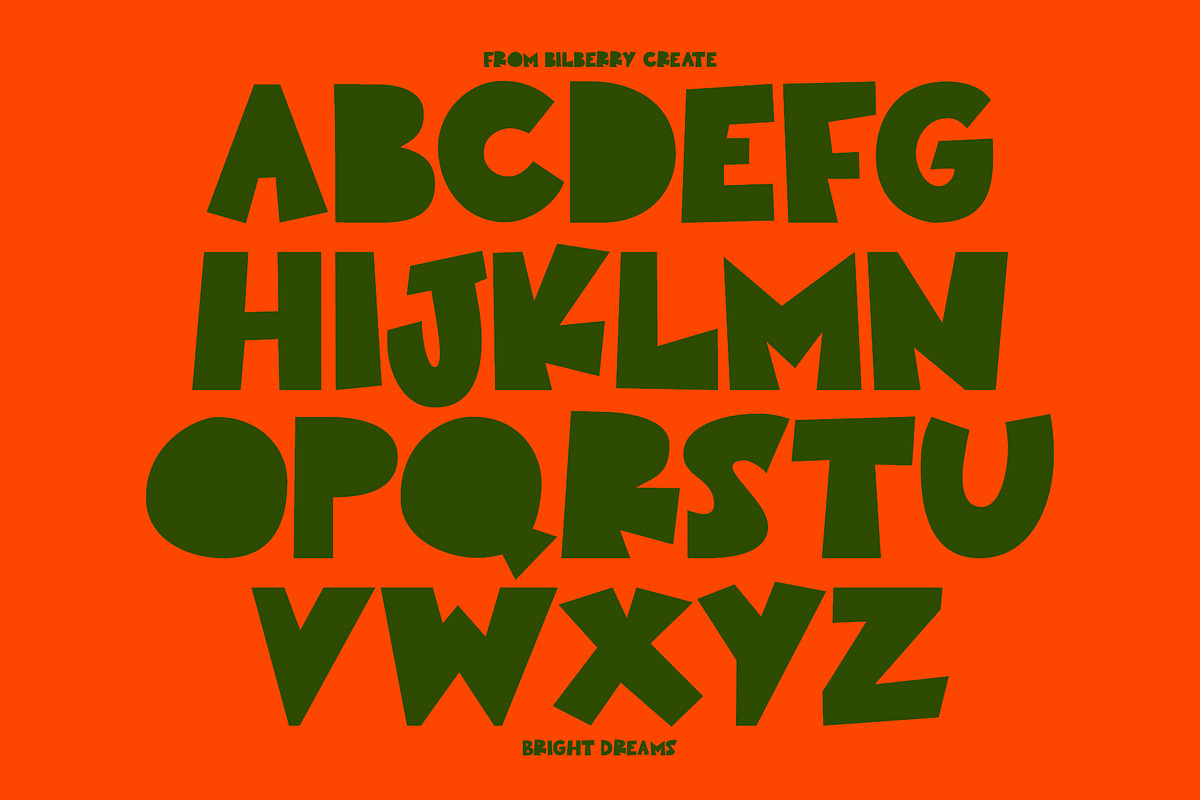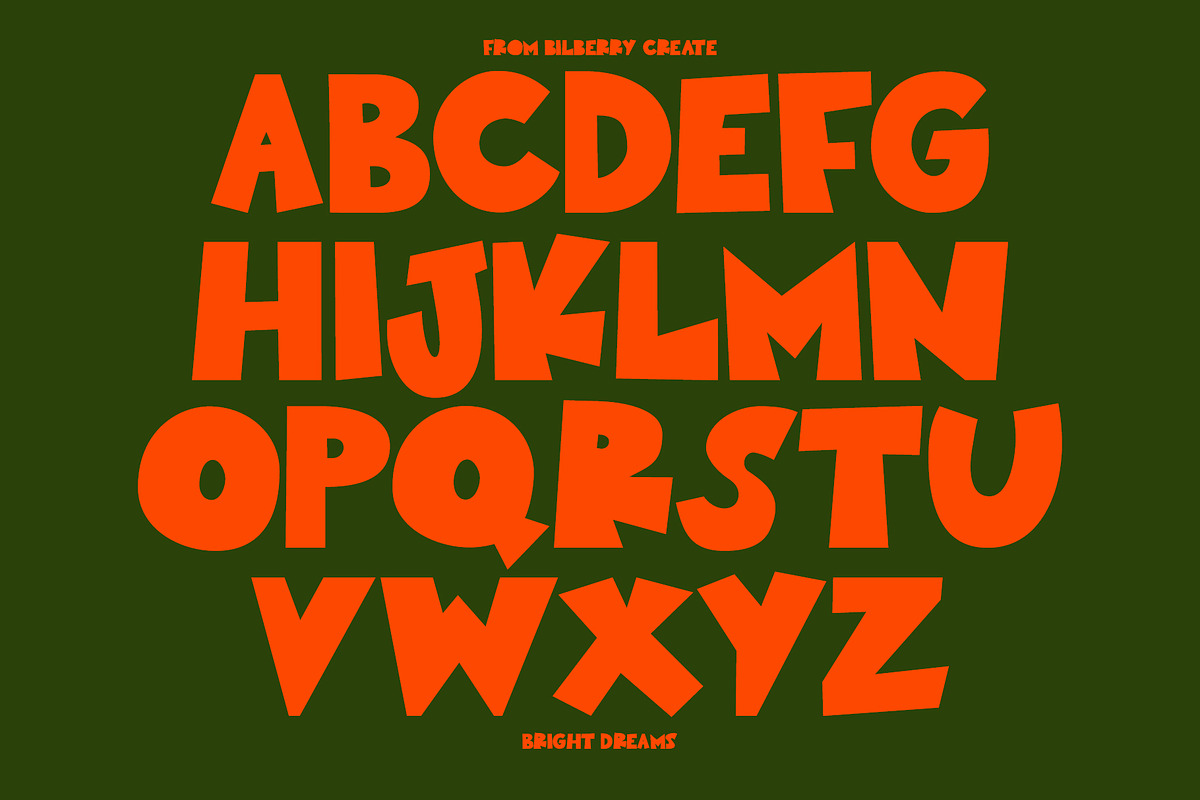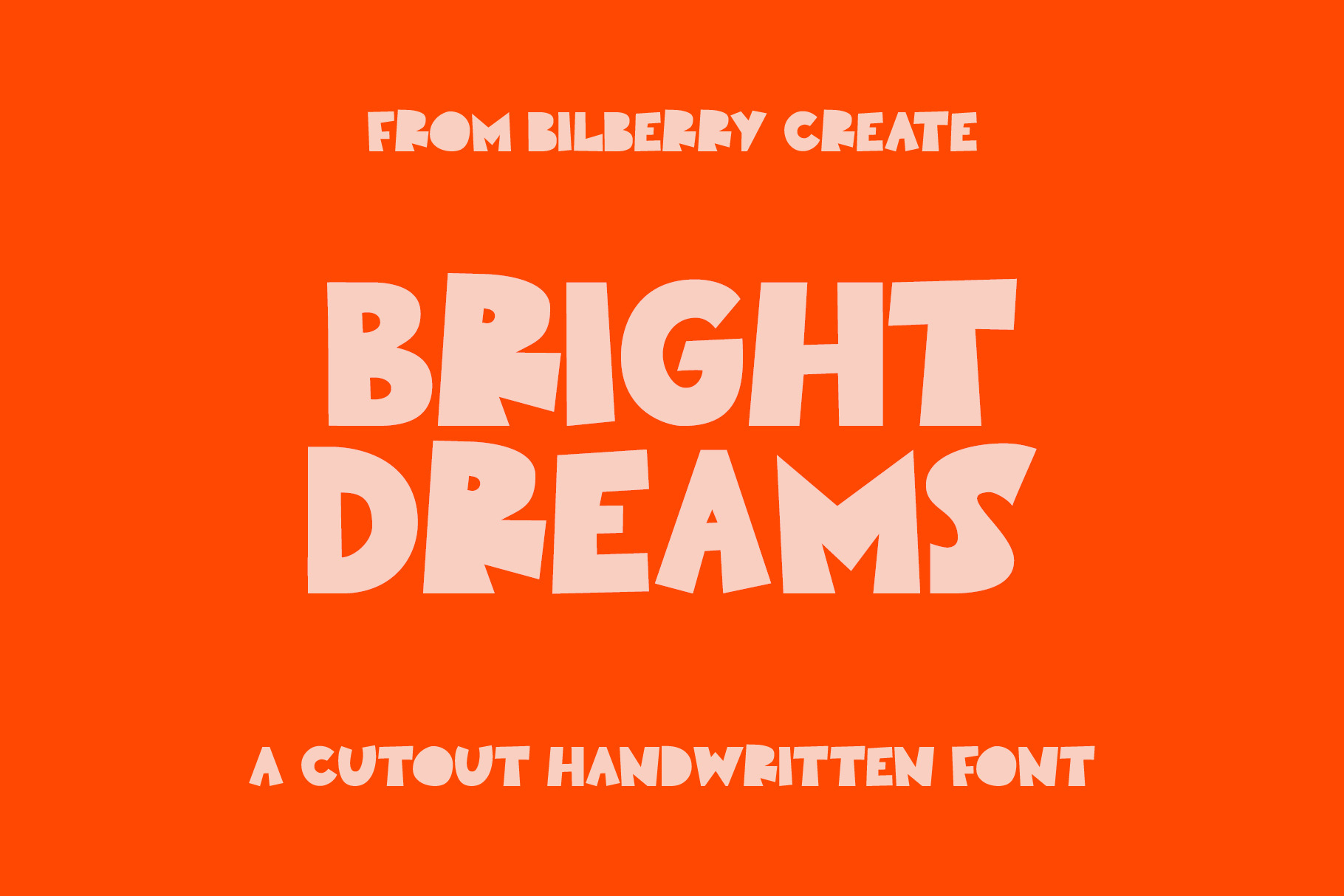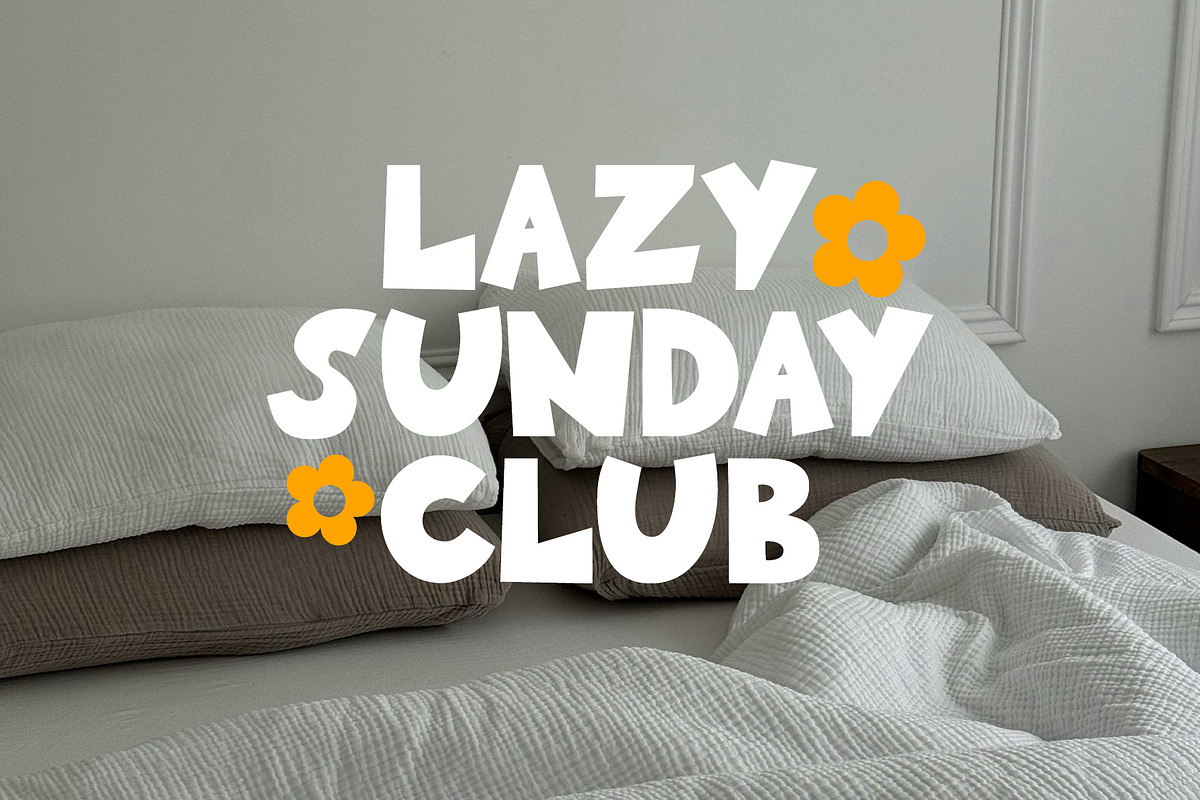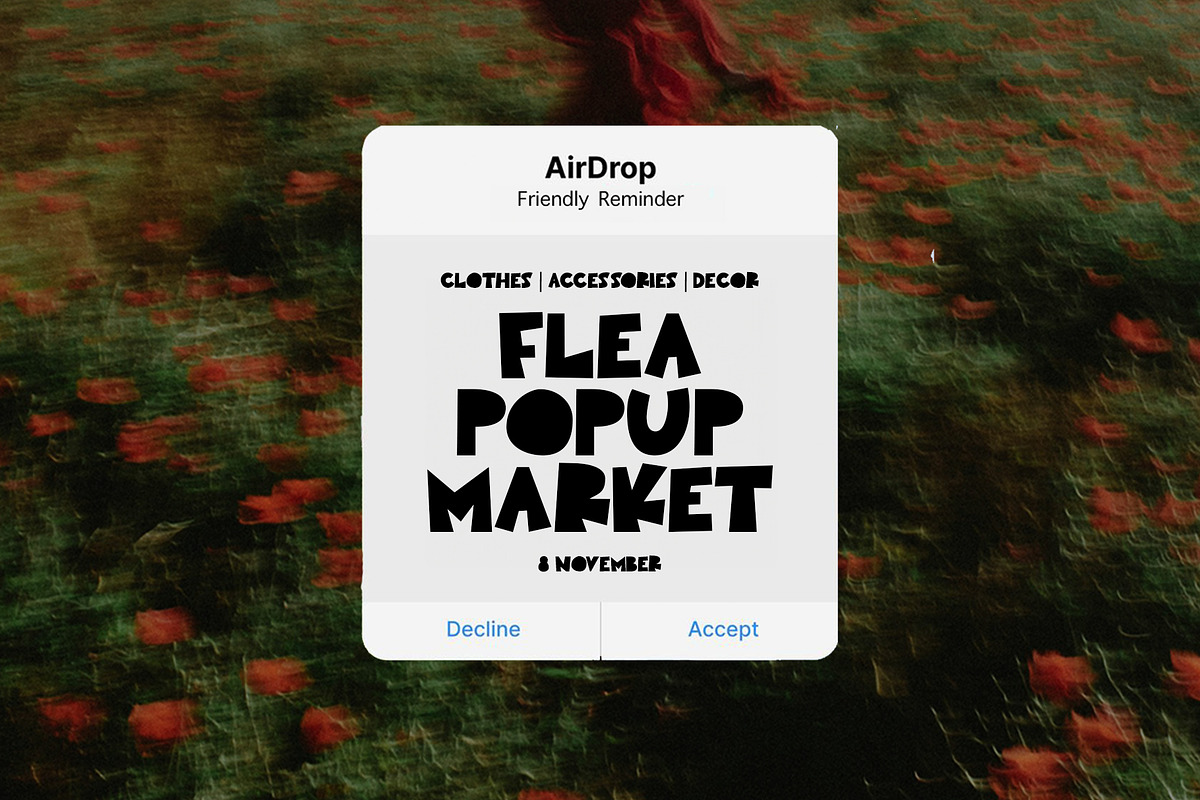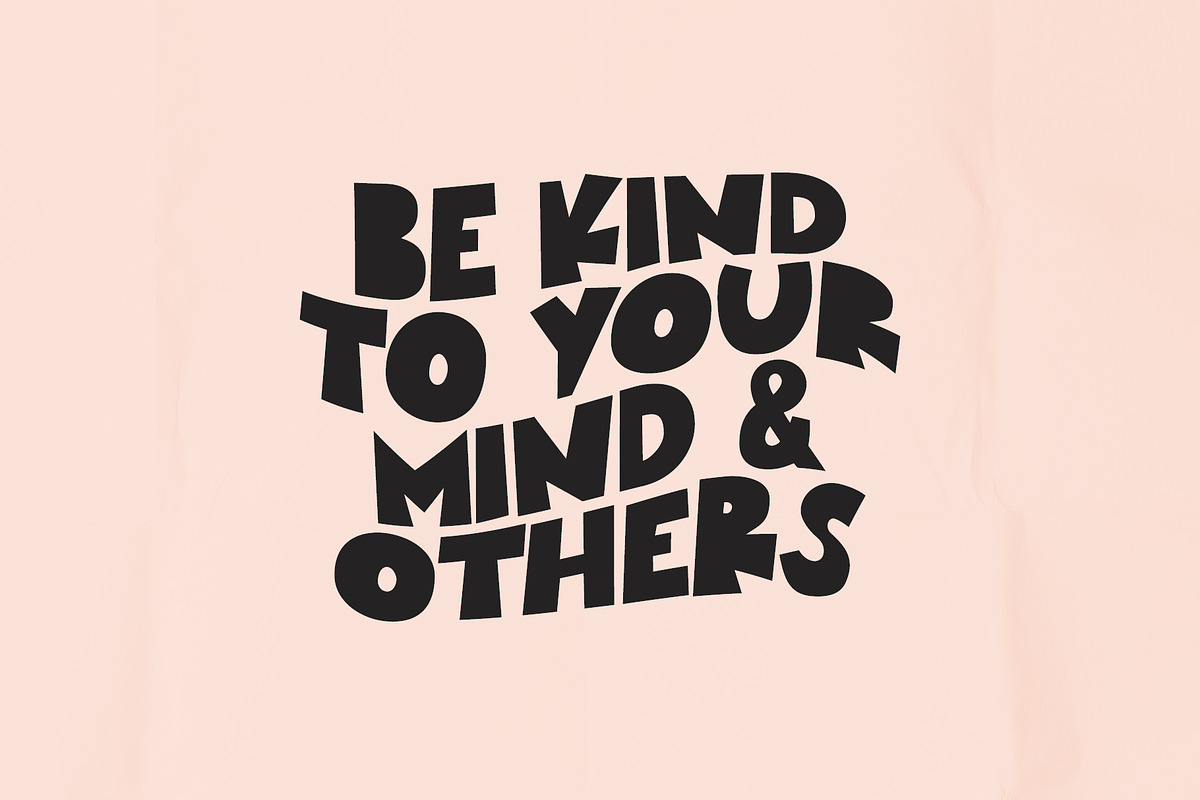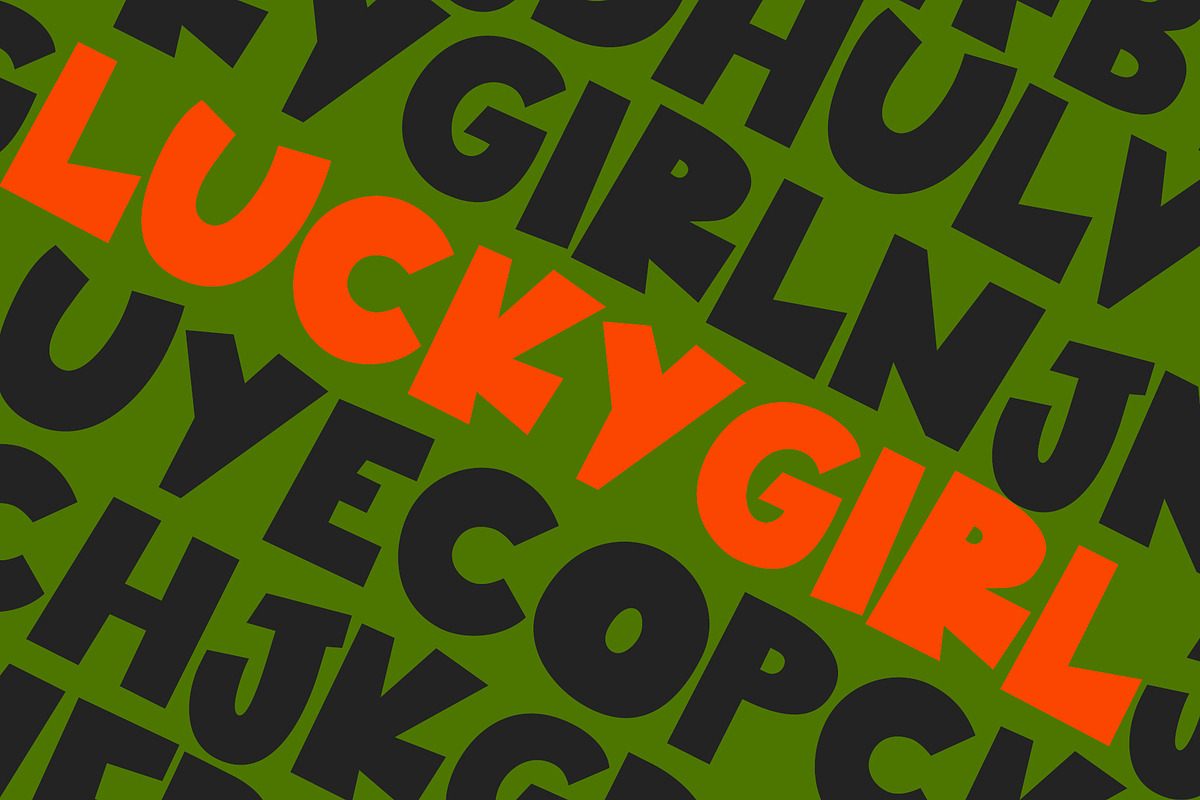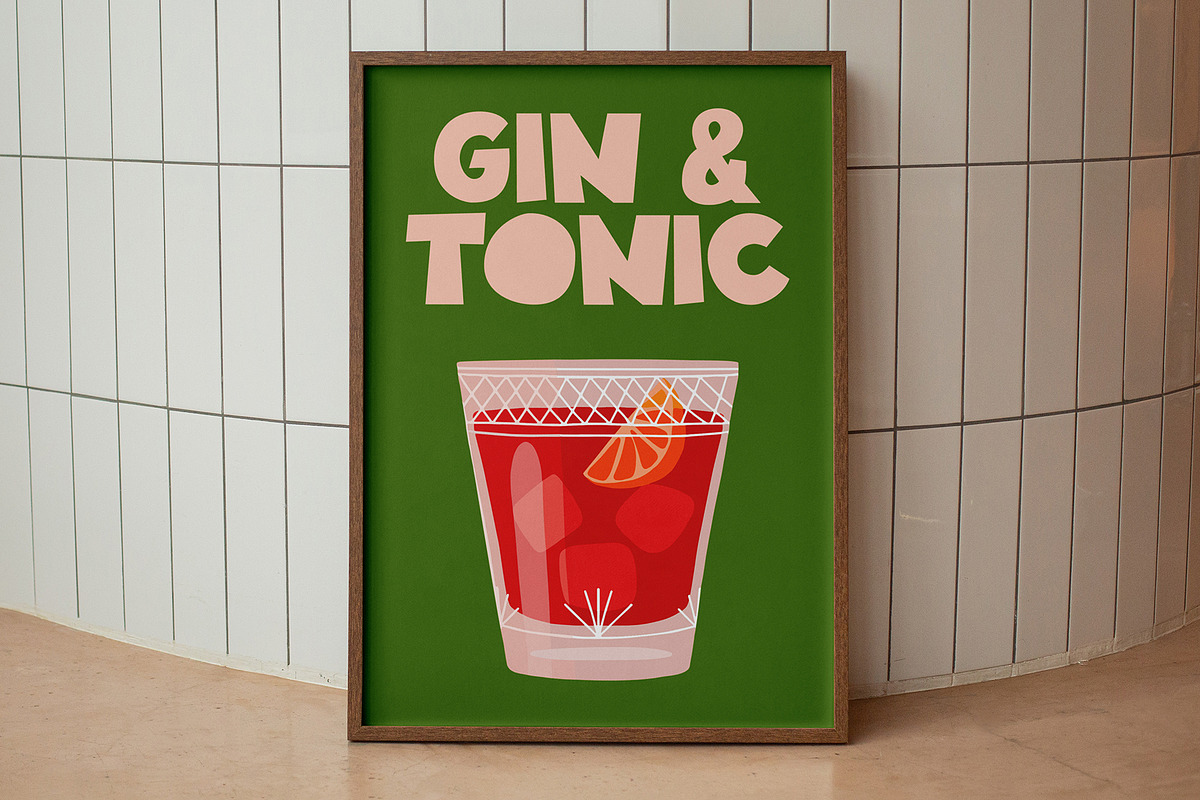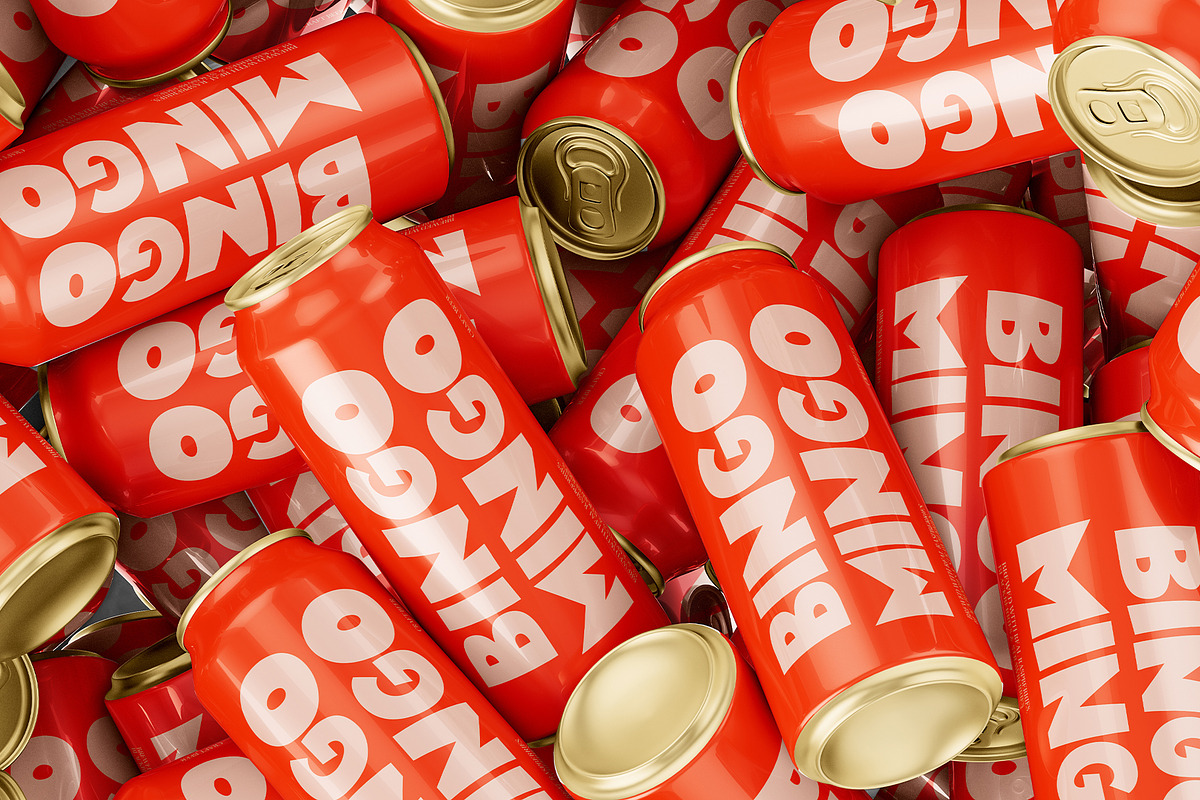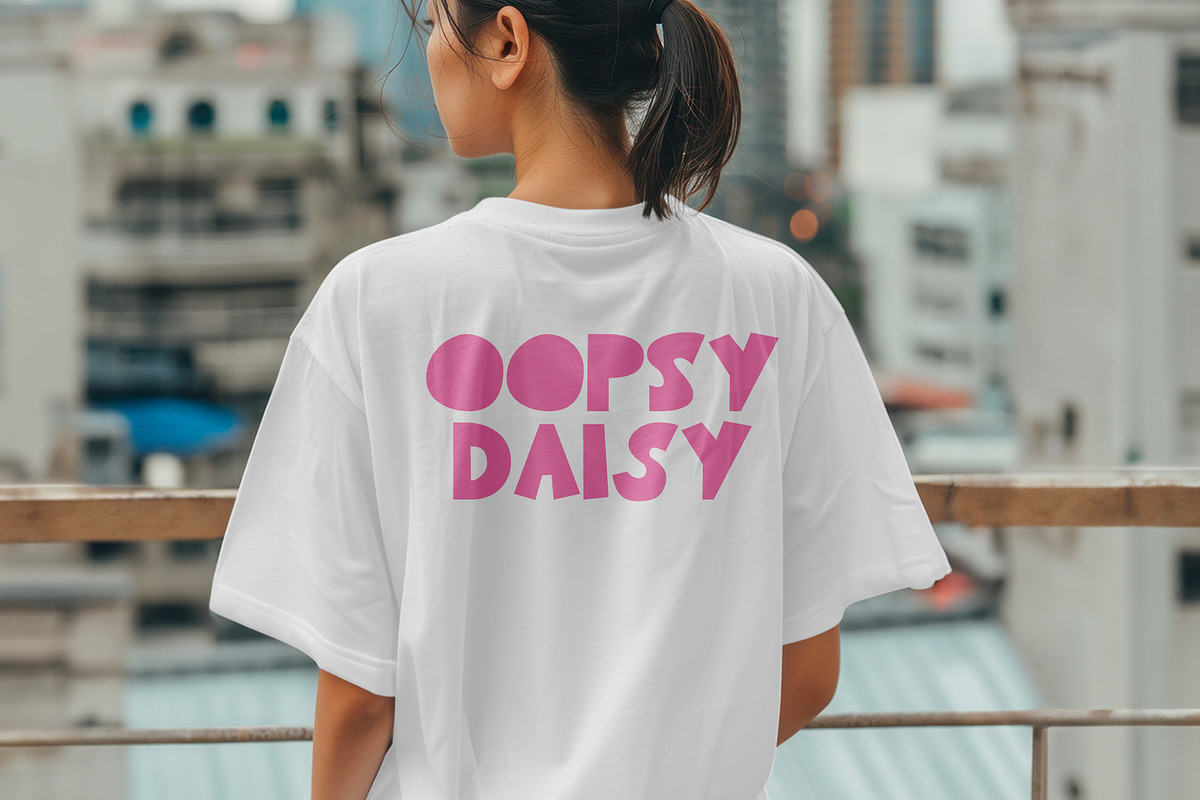
Bright Dreams cutout font
Bright Dreams Cutout Handwritten Font!
This is a perfect playful font for any project. Be sure to click on the image to see all elements. This product was created to help you make your digital images even more beautiful and unique.